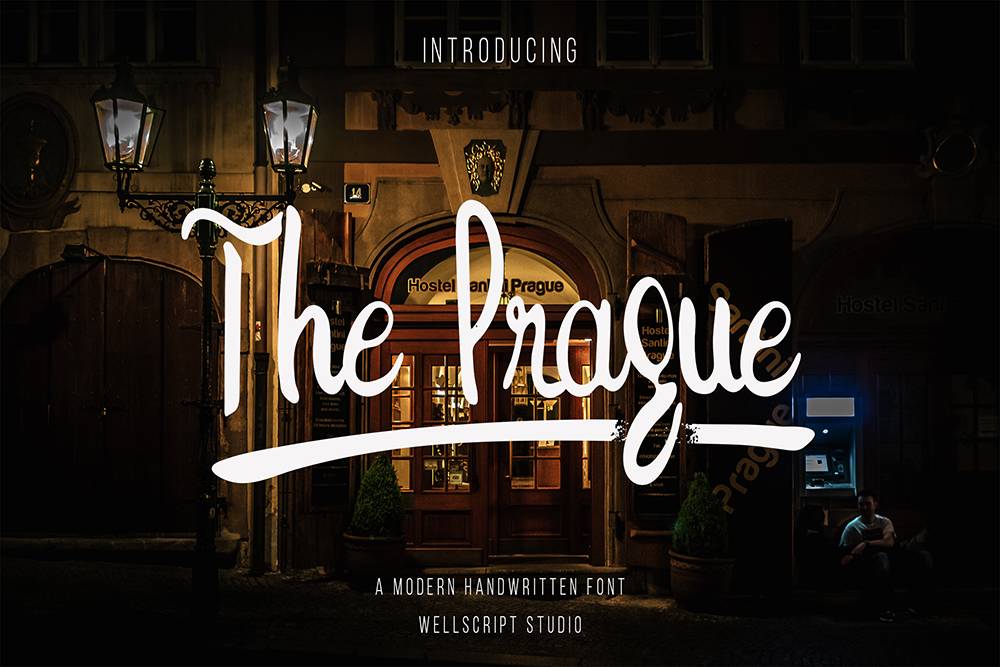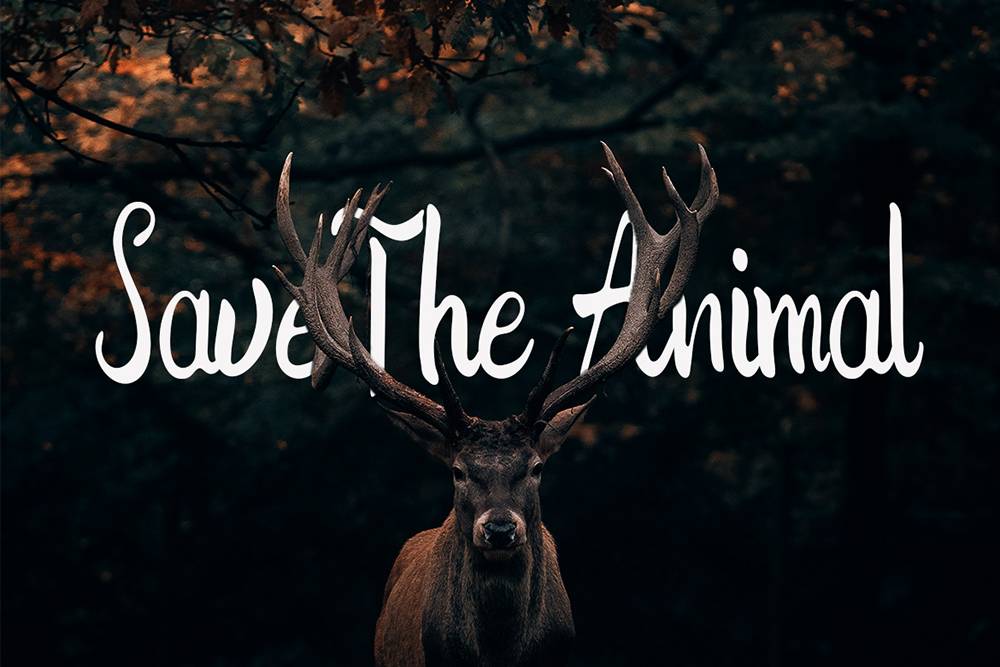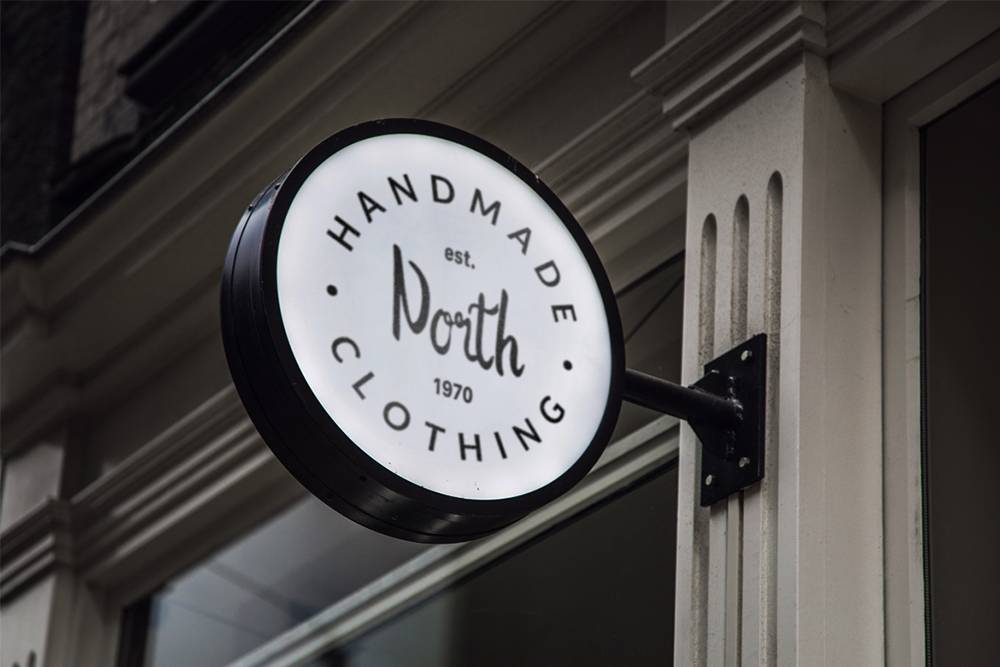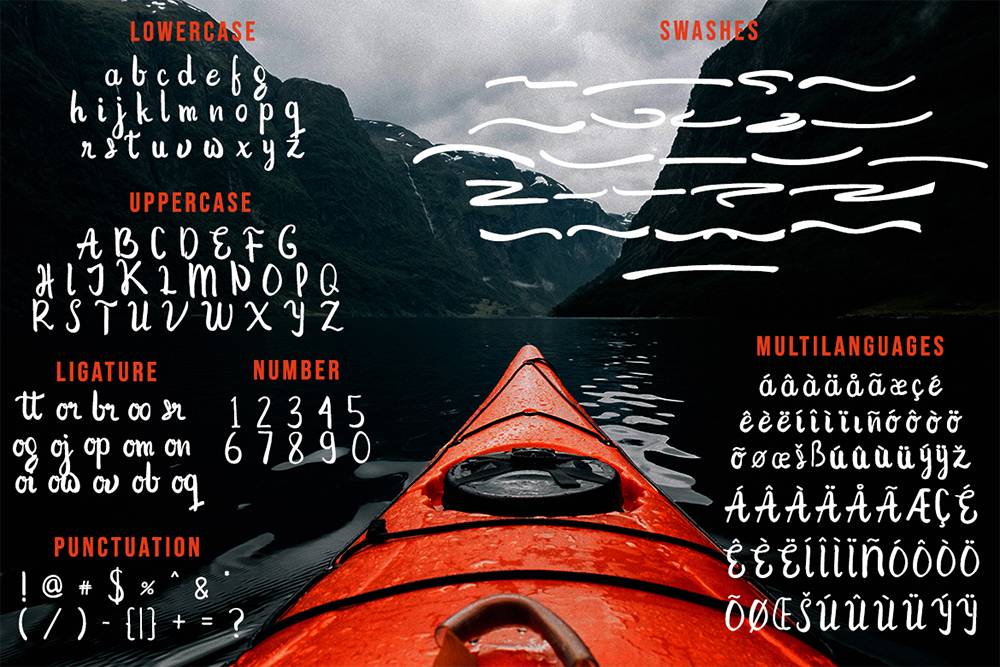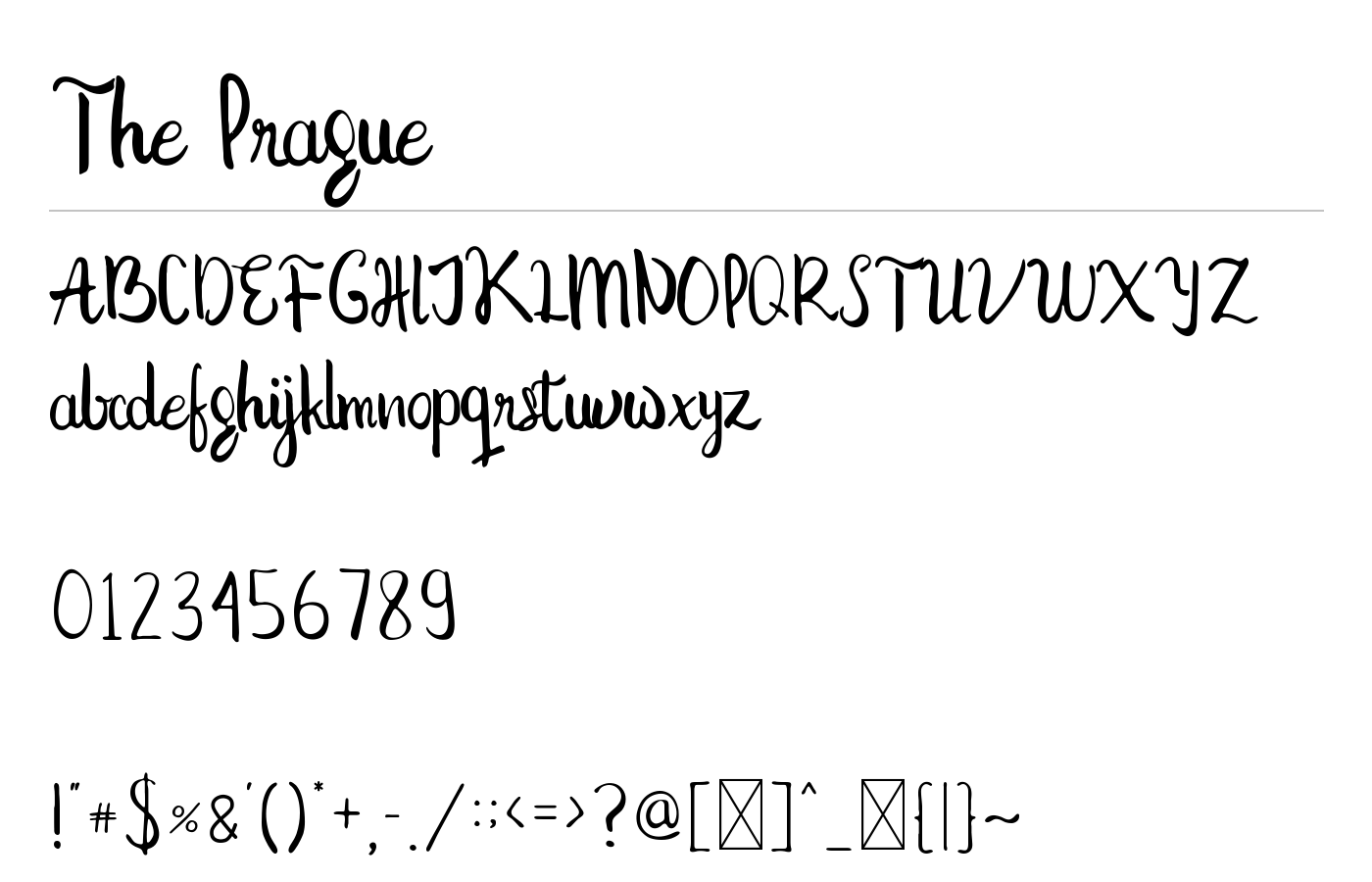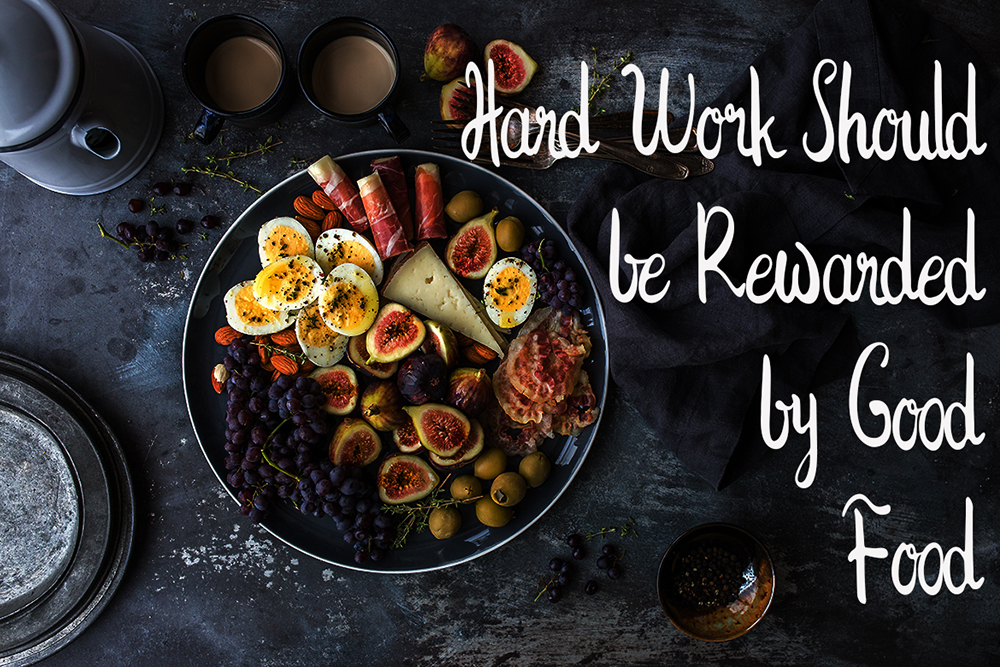
The Prague Handwritten Script Font is a playful and informal script with slender, uneven strokes that give it a natural, hand-drawn feel. Its tall, narrow letterforms and quirky character shapes bring a lively and creative vibe, making it ideal for casual branding, invitations, and artistic projects that seek a personal touch. This font works best in headlines or decorative use where its unique personality can stand out clearly.
The Prague Handwritten Script Font
About The Prague Handwritten Script Font